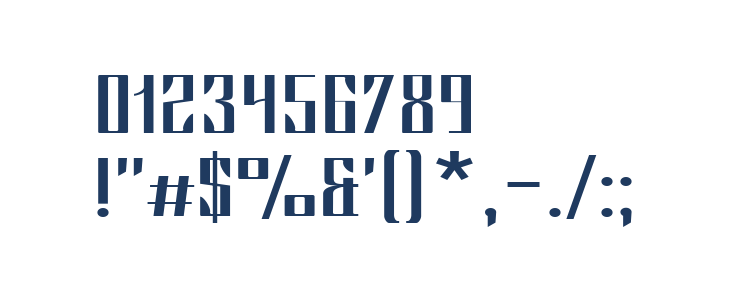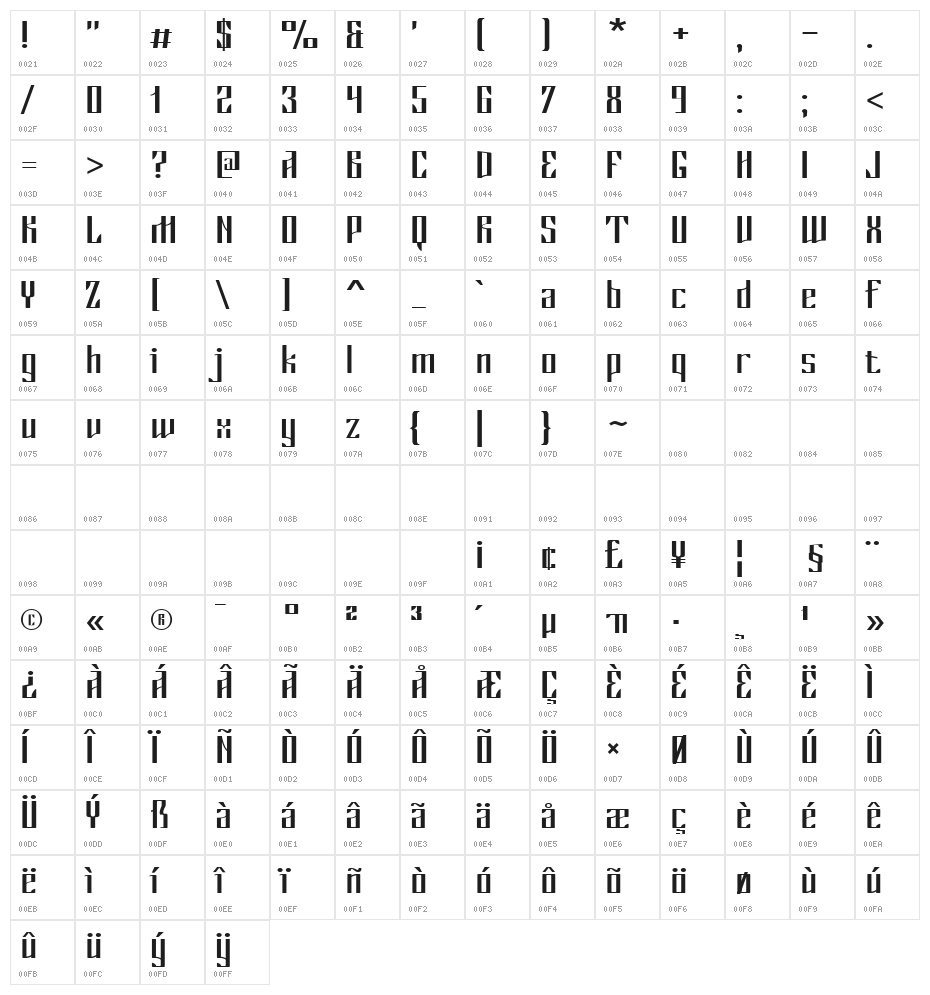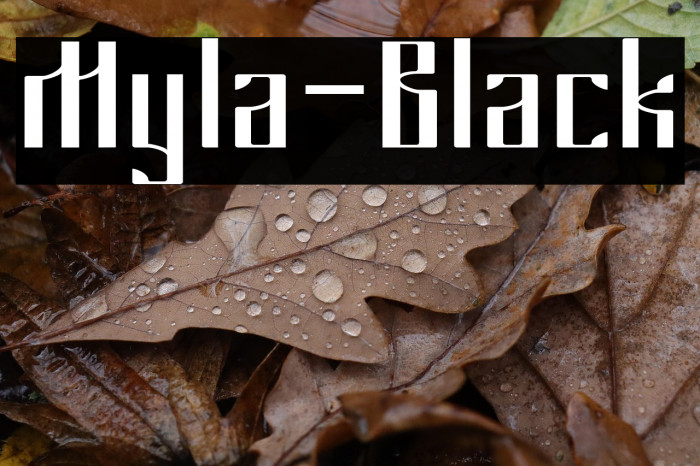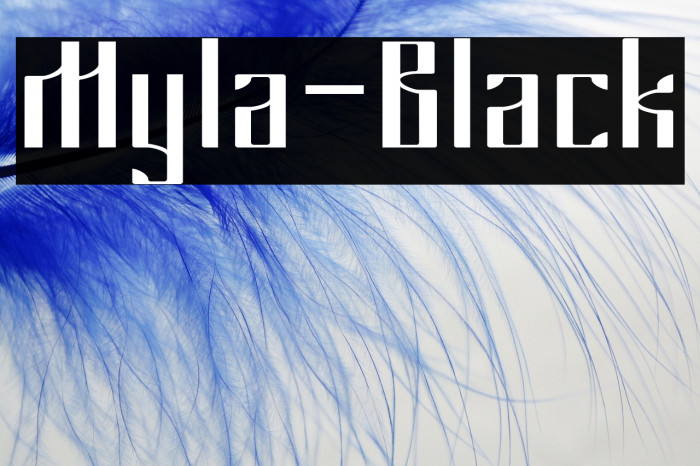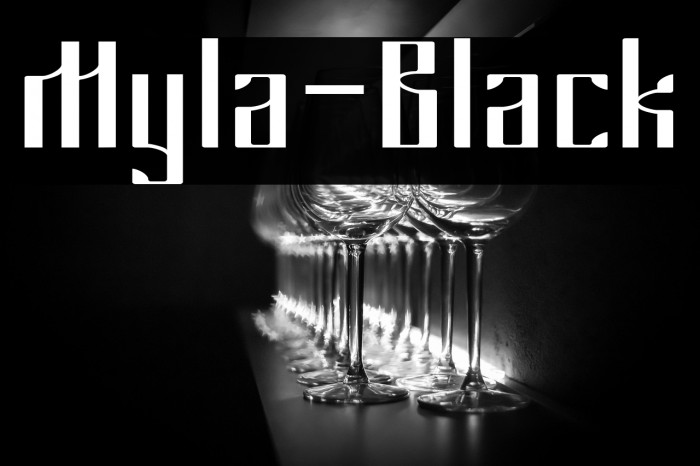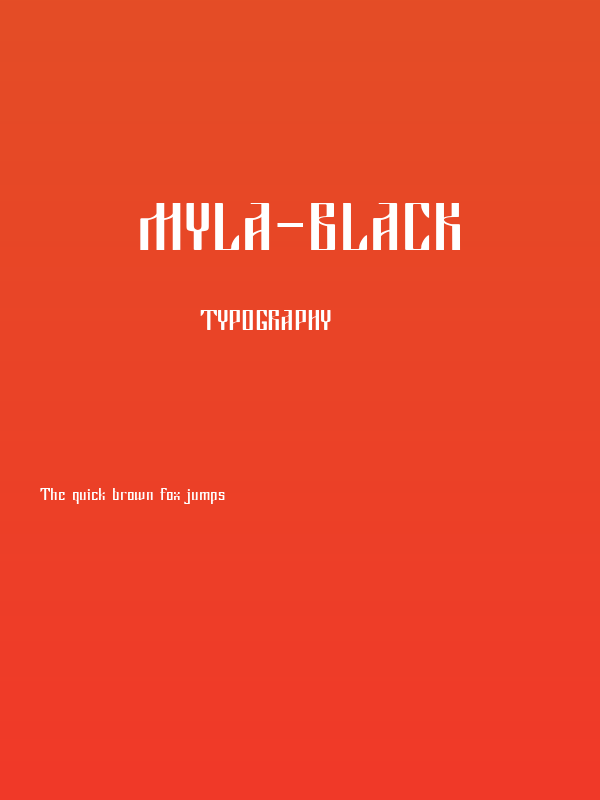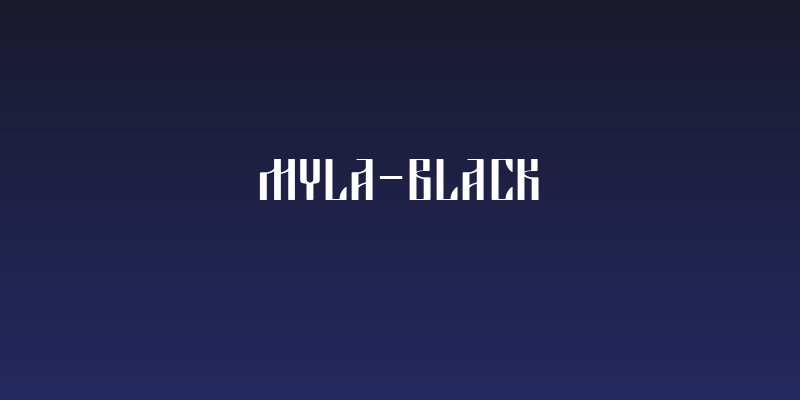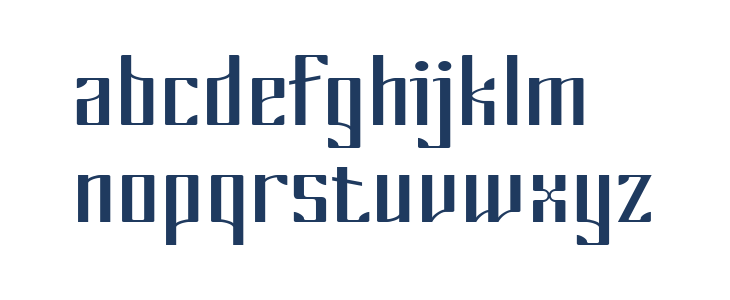
Myla-Black Font
Myla-Black Description
This font features a bold and striking design with a modern, angular aesthetic. The characters are tall and narrow, with sharp edges and a geometric influence that gives it a futuristic feel. The uppercase letters are particularly distinctive, with unique cuts and angles that create a sense of movement and energy. The lowercase letters maintain this angular style, ensuring consistency throughout the typeface. Numbers and special characters are designed with the same attention to detail, making them stand out with their bold presence. The overall impression is one of strength and modernity, making it suitable for impactful design projects.